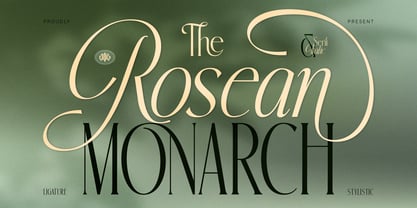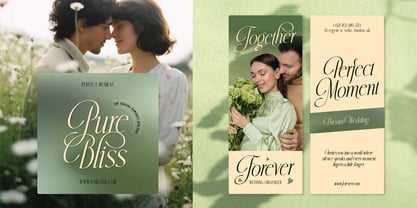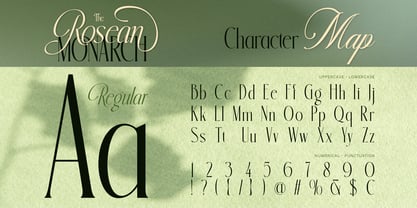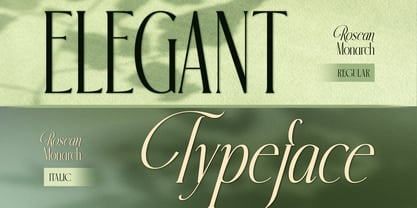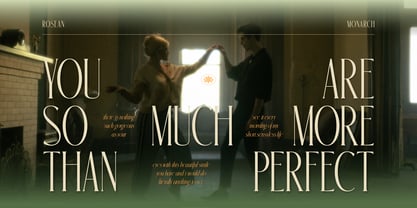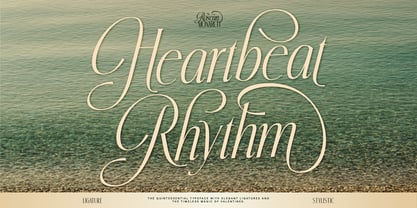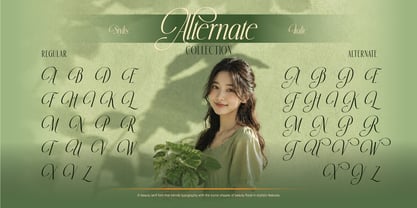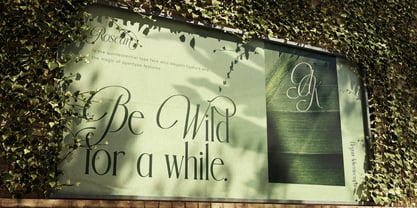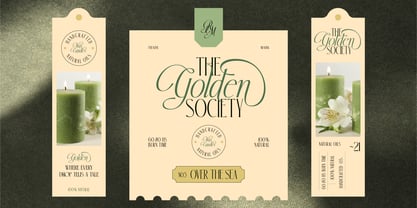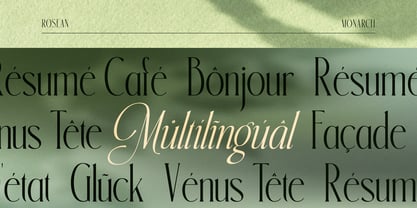
Rosean Monarch
by Burntilldead
The Rosean Monarch Font Family was designed by Eric Kurniawan and published by Burntilldead. Rosean Monarch contains 2 styles and family package options. More about this family
• Rosean Monarch Regular
• Rosean Monarch Italic
Rosean Monarch is an elegant serif duo typeface that pairs a clean, modern serif with a flowing italic companion style. Designed for brands that want to feel timeless yet contemporary, this font blends classic serif structure with graceful, romantic curves — perfect for adding a touch of sophistication to any project.
Rosean Monarch brings a refined, editorial-meets-romantic aesthetic to your designs — ideal for creators, and designers looking for a versatile serif font with a distinctive elegant touch.
Designers: Eric Kurniawan
Foundry: Burntilldead